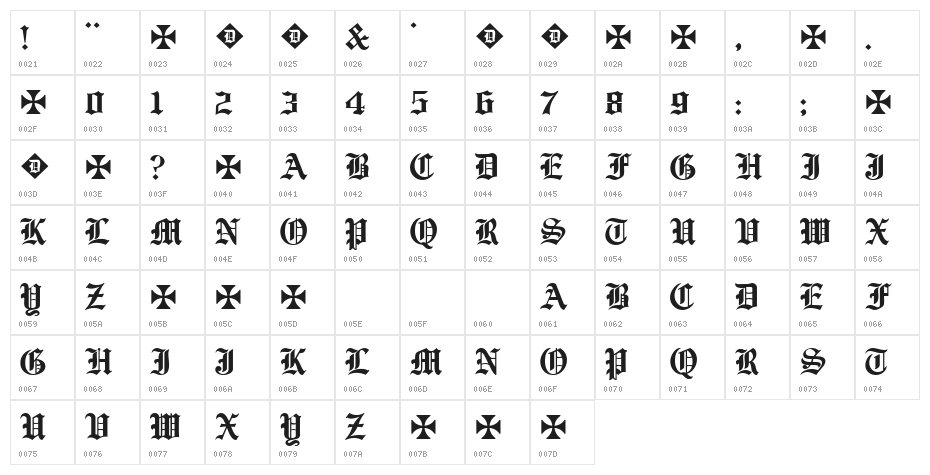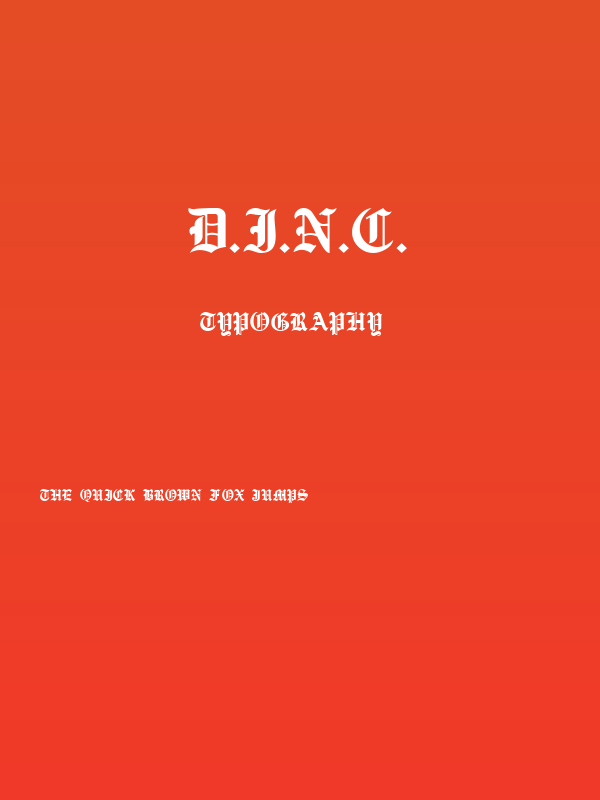
D.I.N.C. Font
✎ Gothic
| Stile generale | Gothic, Medieval |
| Caso d'uso | Headlines, Logos, Decorative text |
| Progetti proposti | Ideal for projects requiring a historical or medieval theme, such as book covers, posters, or branding for events and products with a vintage or gothic appeal. |